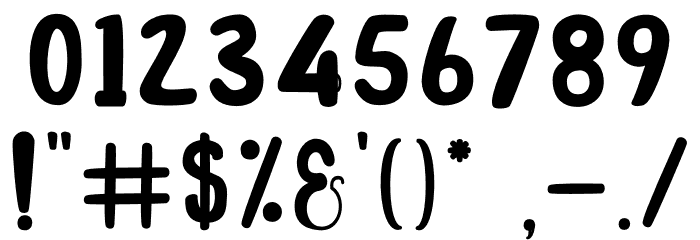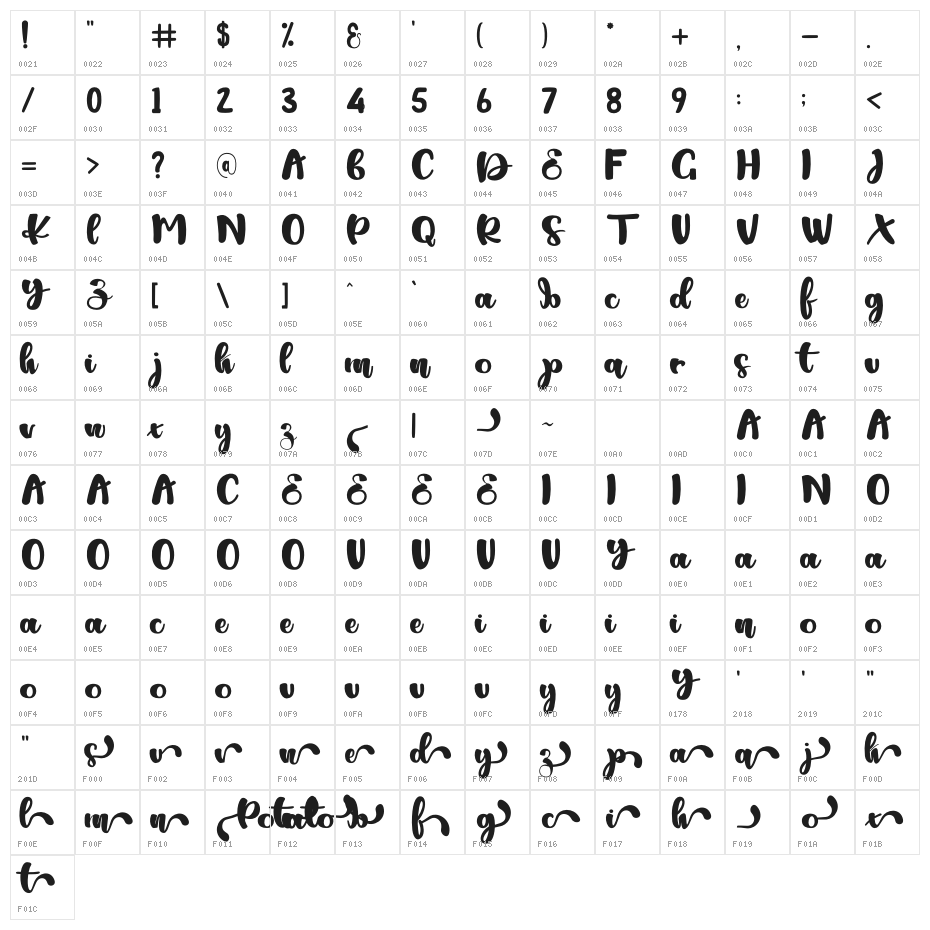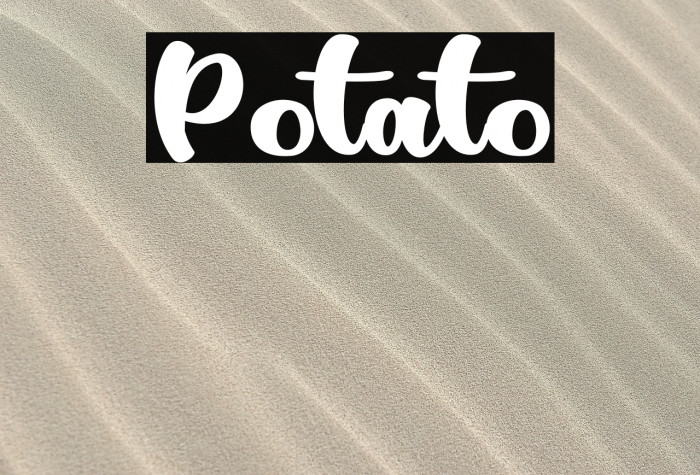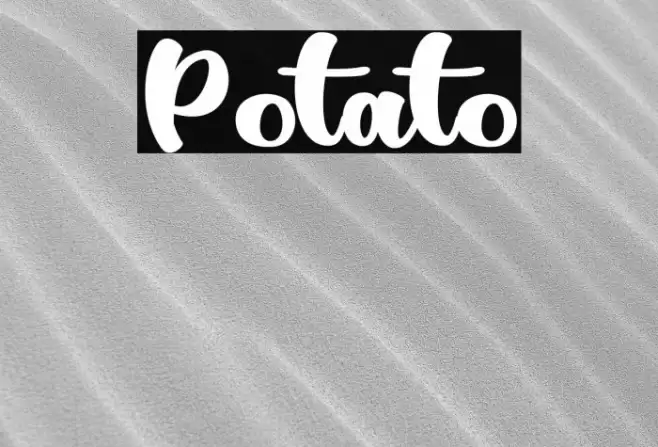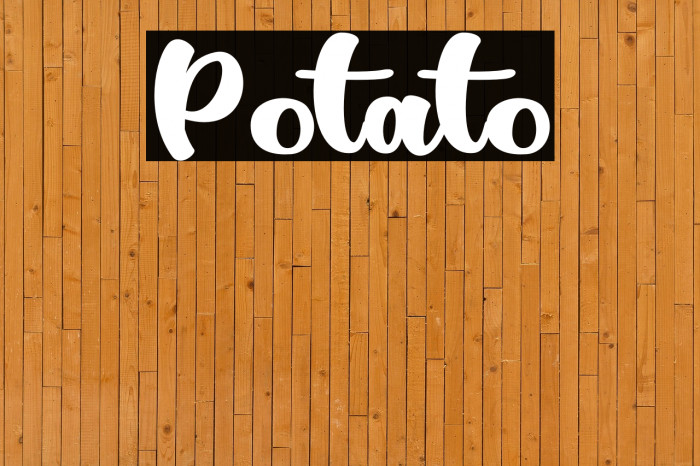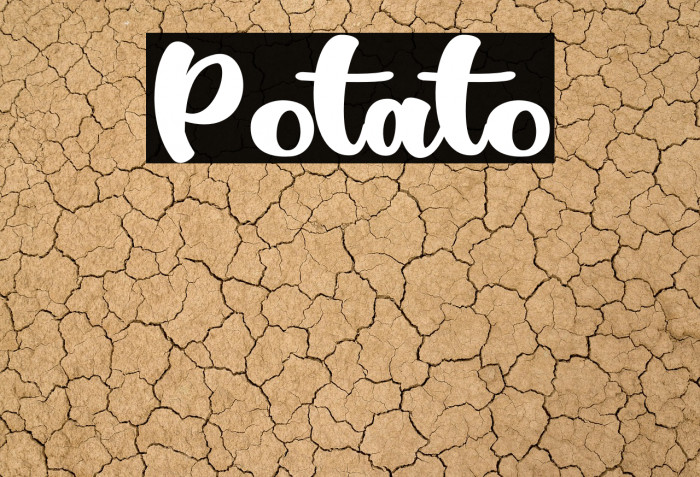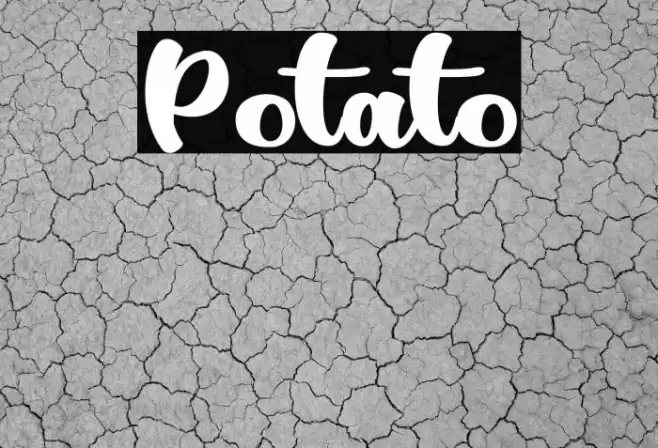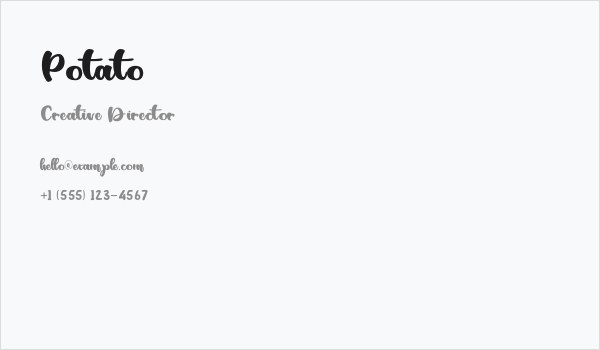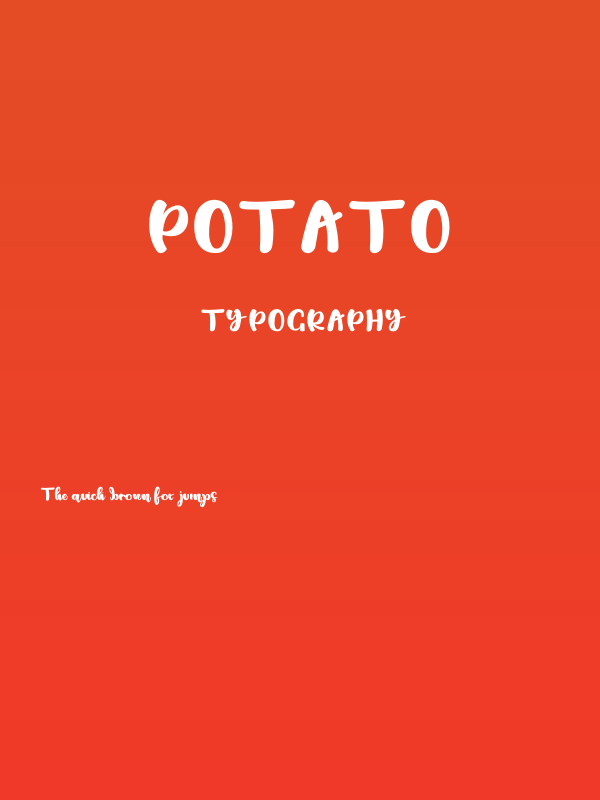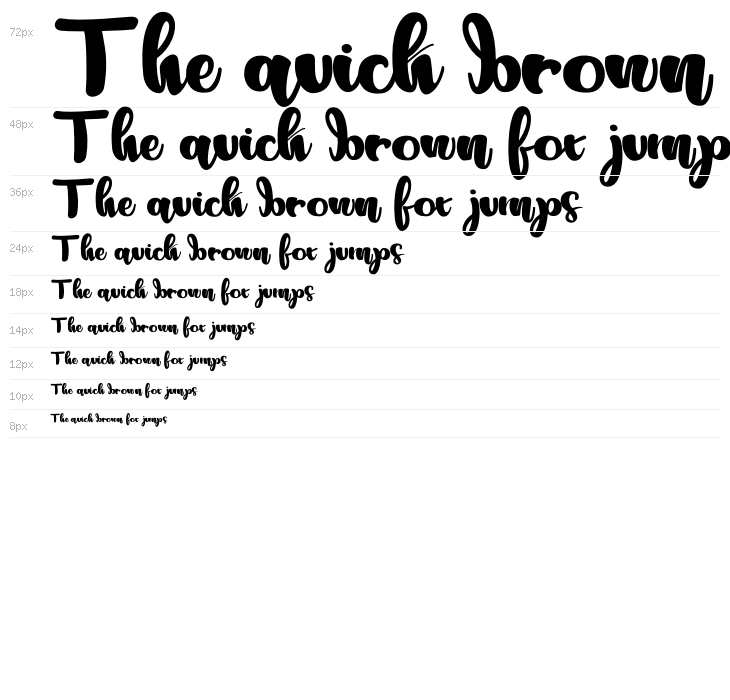
Potato Font
Potato Description
This font features a playful and bold script style with a hand-drawn appearance. The uppercase letters are characterized by their thick strokes and rounded edges, giving them a friendly and approachable look. The lowercase letters maintain a consistent flow, with some letters featuring unique loops and swirls that add to the font's charm. The numbers are bold and easy to read, while the special characters are designed to match the overall style, ensuring a cohesive look across all text elements. This font's thick strokes and rounded forms make it stand out, making it ideal for creative and fun projects.